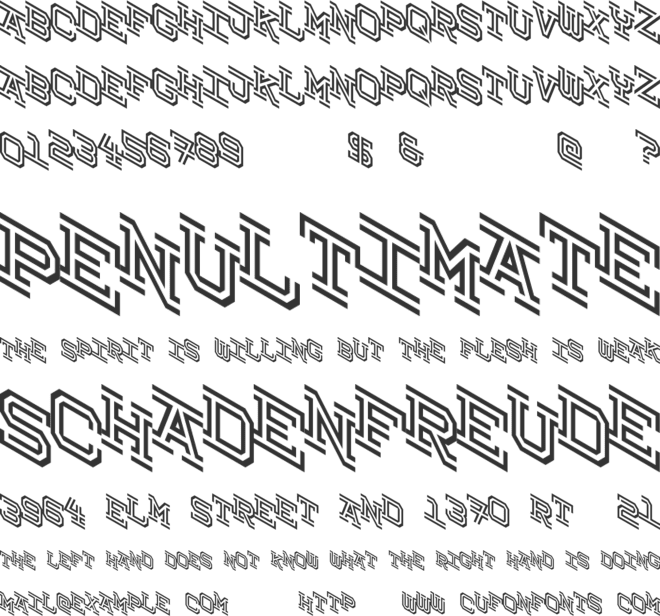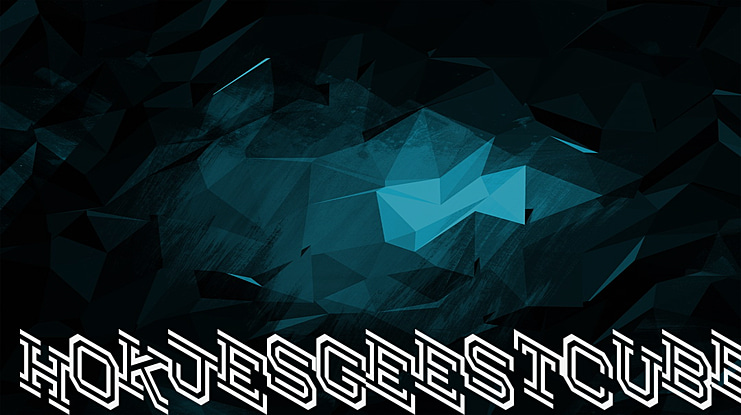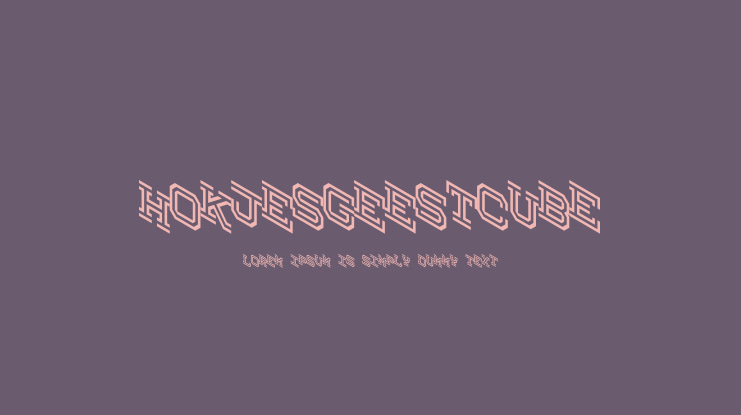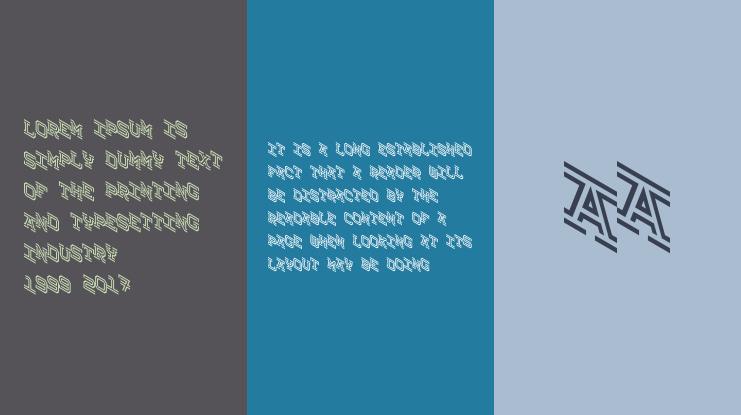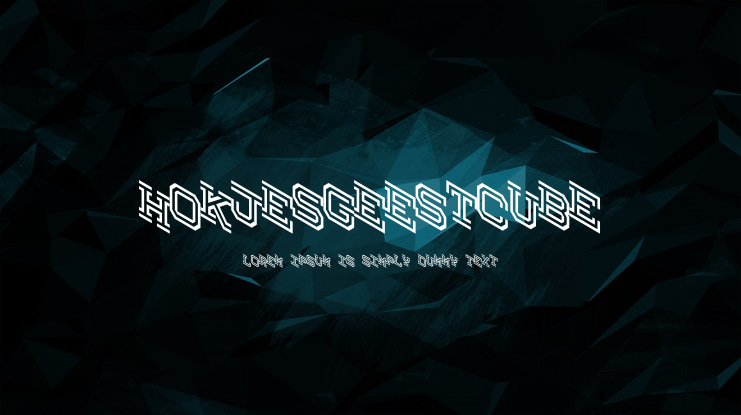
Hokjesgeestcube Font Family
Tup Wanders
The isometric 3-d version of my Hokjesgeest font. I couldn't figure out how to give the seperate sides their own custom font subfamily name, so you'll have to figure out which is which in the italic and bold selector. It took me way too long (an entire evening ffs) to line this thing up, so if there are any irregularities left, then, well, ... I can't be bothered really :)
There's an image with a simple instruction of how to use it on this page somewhere. It's monospaced and the top is a left and a right side wide so you can alternate with spac... oh you'll figure it out eventually.